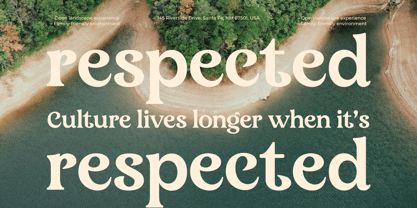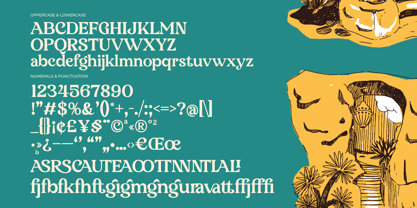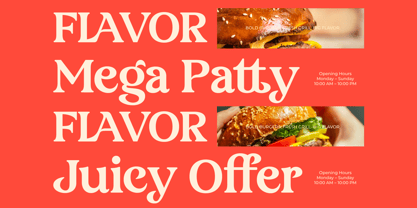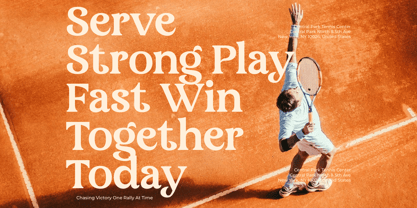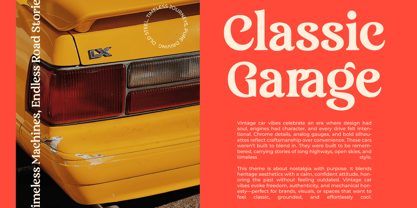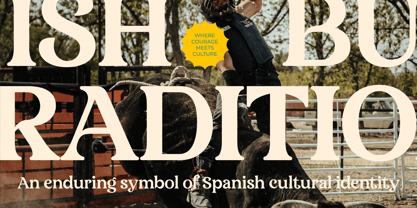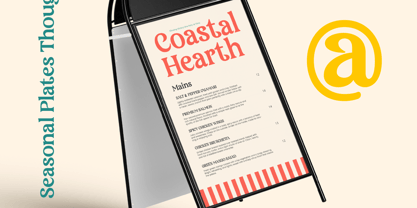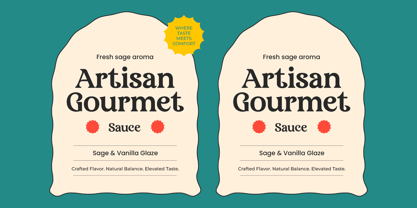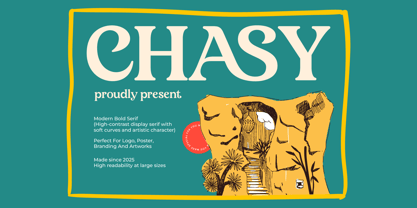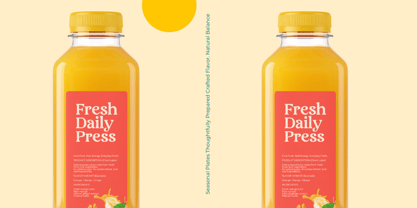
Chasy
von Jaruka Creative
Die Schriftfamilie Chasy wurde von Edy Subiyanto entworfen und von Jaruka Creative veröffentlicht. Chasy enthält 1 Stile. Mehr über diese Familie
Meet Chasy: The Art of the Bold Serif
Introducing Chasy, a high-contrast display serif crafted to bring an undeniably artistic character and sophisticated fluid rhythm to modern typography. Created with a beautiful balance of dramatic thickness and elegant, soft curves, Chasy effortlessly commands attention while maintaining impeccable readability at large sizes.
This typeface is custom-tailored for designers who want their logos, posters, branding, and artwork to speak with confidence and style.
Key Features That Make Chasy Stand Out
• Artistic Curves & High Contrast: Every letterform balances heavy, robust strokes with delicate, sweeping hairlines to give your text an organic yet authoritative presence.
• Rich Character Set: Chasy comes loaded with complete uppercase and lowercase alphabets, crisp numerals, essential punctuation, and an exquisite selection of unique ligatures and stylistic alternates to make your layouts completely custom. You can explore the full character map.
• Versatile Readability: While it thrives as a bold display face, its carefully structured letterforms ensure it remains legible and impactful across a vast array of print and digital applications.
Designed for Endless Creative Applications
Chasy isn't just a font; it's a chameleon for premium design spaces. Its fluid geometry adapts beautifully across industries:
• Premium Food & Beverage Packaging: Give your products an organic, high-end feel. Chasy adds an authentic, artisanal touch to gourmet labels and beverage bottles.
• Bold Advertising & Signage: Make your promotions impossible to skip. From punchy, high-energy food advertisements like the burger promo to elegant sidewalk cafe menus, Chasy serves up information with unmistakable flavor.
• Editorial & Large-Scale Print: Whether capturing the motion of high-stakes sports photography, or evoking deep, thoughtful cultural narratives over landscape spreads, Chasy handles editorial scale with poetic ease.
• Nostalgic & Heritage Branding: If your project taps into timeless style or heritage aesthetics, Chasy carries a calm, confident, and retro-inspired attitude.
Designer: Edy Subiyanto
Foundry: Jaruka Creative